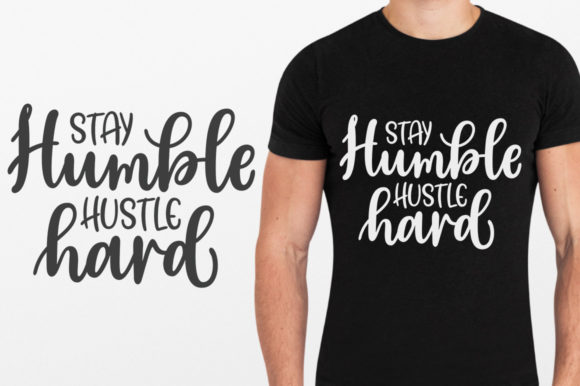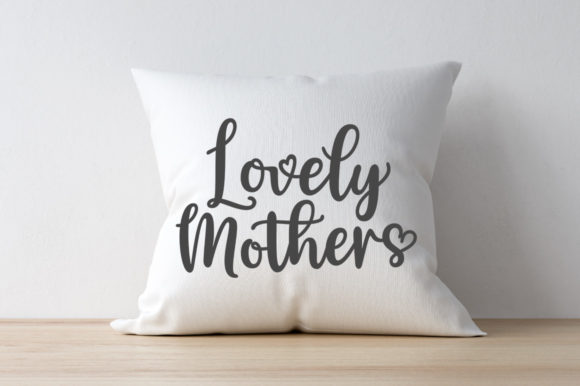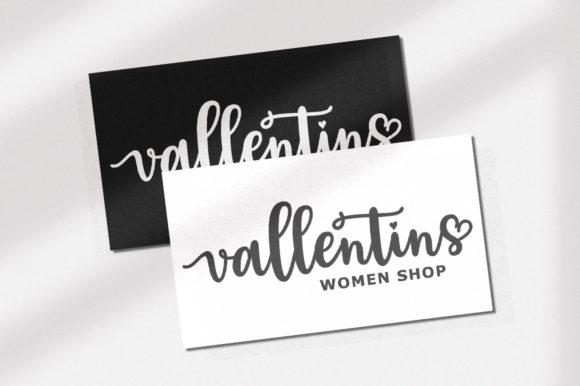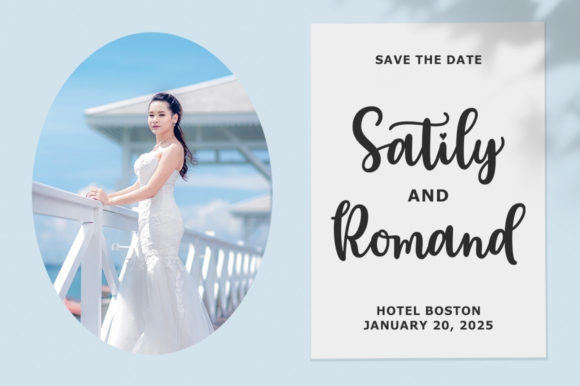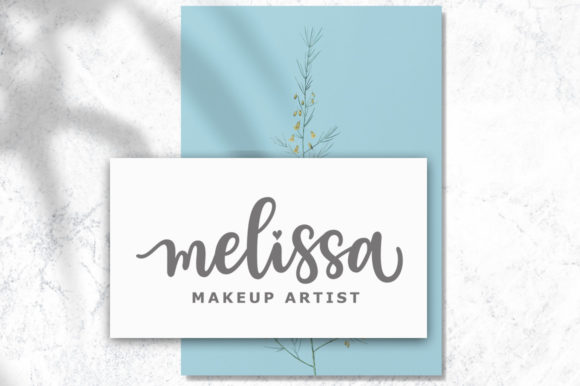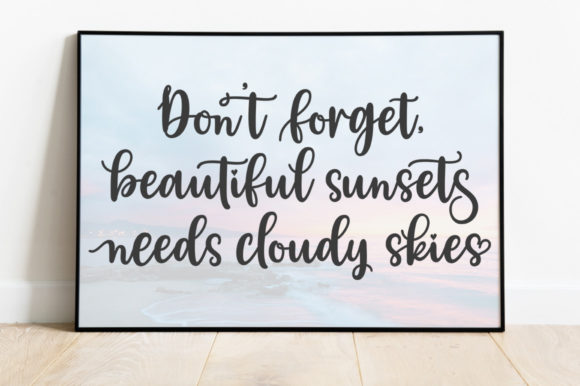
Introduction to Romantis Natalies Font
Have you ever stared at a blank canvas, your mind racing with ideas, yet struggling to bring your creative project to life? The blank page can be intimidating, but what if you had the perfect design resource to spark your imagination? Enter the Romantis Natalies Font, a stunning modern duo font that’s about to become your new best friend.
This beautifully crafted font combines the elegance of a script font with the sleekness of a sans serif, creating a harmonious balance that’s sure to elevate your designs. With its PUA encoding, you’ll have access to a wide range of glyphs and swashes, allowing you to customize your text with ease and add a personal touch to your creative project.
Key Features of Romantis Natalies Font
- High-quality font design for creative projects, ideal for use as a design resource.
- Unique characteristics include elegant and romantic script, making it perfect for wedding invitations, love letters, and other creative projects.
- Perfect for designers who want a high-quality, free font for their creative projects, without compromising on design and aesthetics.
Honest Review: Romantis Natalies Font
I recently had the chance to experiment with the Romantis Natalies Font, a beautiful, high-quality design resource. One of the first things that caught my eye was the elegant script style, perfect for adding a touch of sophistication to a creative project.
Some notable features include:
- Beautiful, elegant script style
⚠️ However, one potential limitation is the font’s limited character set. If you’re looking for a comprehensive font with a wide range of characters and symbols, you may want to consider other options.
Overall, I’m impressed with the Romantis Natalies Font. It’s a great choice for designers working on a creative project that requires a touch of elegance and sophistication.
How to Use Romantis Natalies Font
Romantis Natalies Font is a high-quality design resource perfect for any creative project. With its unique style and versatility, it’s an ideal choice for designers and artists looking to add a touch of elegance to their work.
Tips for Getting the Most Out of Romantis Natalies Font
Use the font with a transparent background to create a subtle, elegant look. Experiment with different font sizes, colors, and styles to achieve the desired effect.
Romantis Natalies Font is perfect for a variety of creative projects, including:
Branding and logo design
Editorial and publishing projects
Advertising and marketing materials
Alternatives to Romantis Natalies Font
Pacifico is a beautiful, elegant script font ideal for creative projects that require a touch of sophistication. It features a high-quality, handwritten design with a transparent background, making it perfect for designs that need a subtle yet stylish look.
Compared to Romantis Natalies Font, Pacifico has a more refined and modern feel, making it suitable for a wider range of design applications.
Great Vibes is a free download font that offers a fun, energetic, and creative design. It’s perfect for designers working on projects that require a playful and youthful vibe.
Unlike Romantis Natalies Font, Great Vibes has a more casual and laid-back feel, making it ideal for social media graphics, advertisements, and other design resources that need a carefree atmosphere.